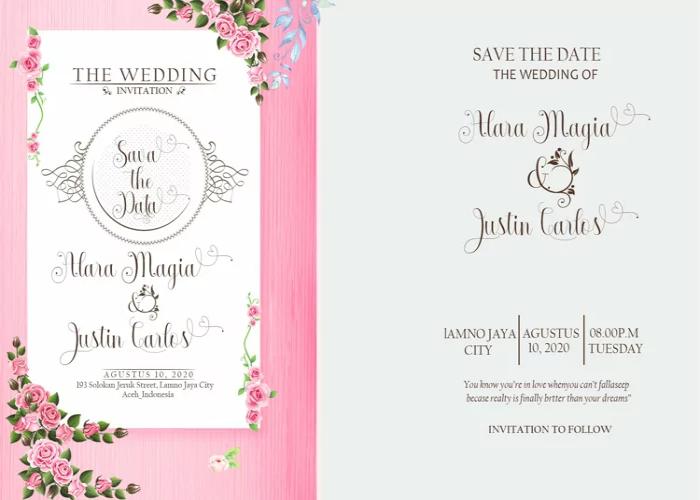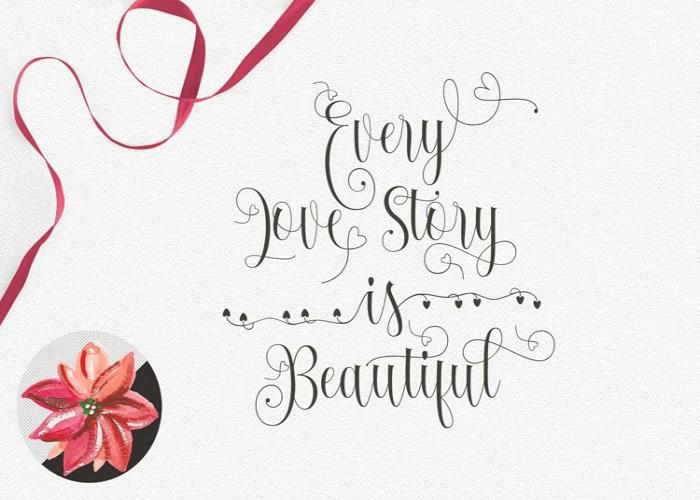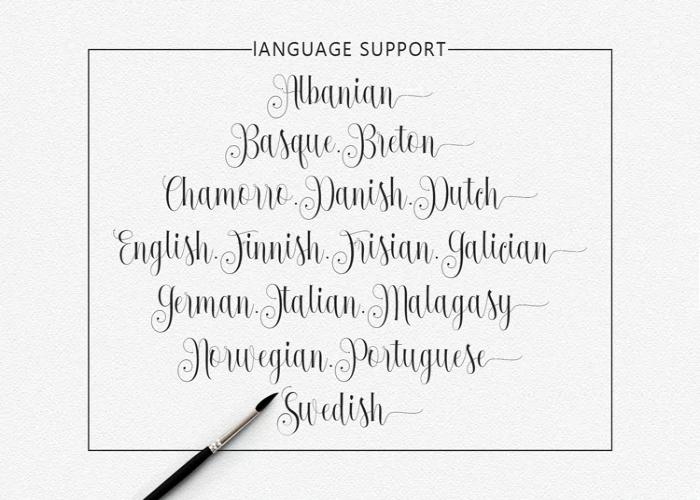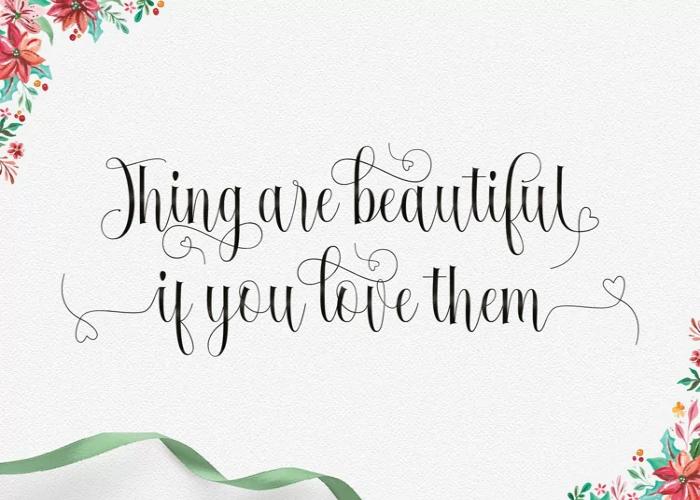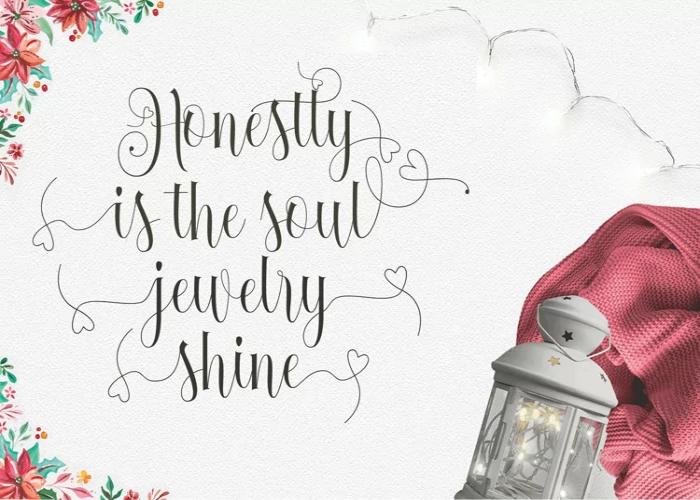
Fantastic Font Freebie
Bored with average fonts! Want something artistic & beautiful? Fantastic Font is the best calligraphic style font to go with. It uses script style to emulate the look of aesthetic handwriting.
This free font also consists of 729 stylistic sets & 509 swash characters which can be used for greeting cards, branding materials, business cards, quotes, posters, and more!